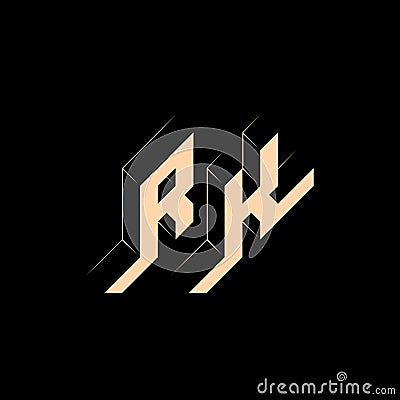
RK - Monogram Or Logotype. Isometric 3d Font For Design. Volume Alphabet. Outline Fonts. Three-dimension Letters. R And K Vector Illustration
RK - monogram or logotype. Isometric 3d font for design. Volume alphabet. Outline fonts. Three-dimension letters. R and K #168045690
RK - monogram or logotype. Isometric 3d font for design. Volume alphabet. Outline fonts. Three-dimension letters. R and K.